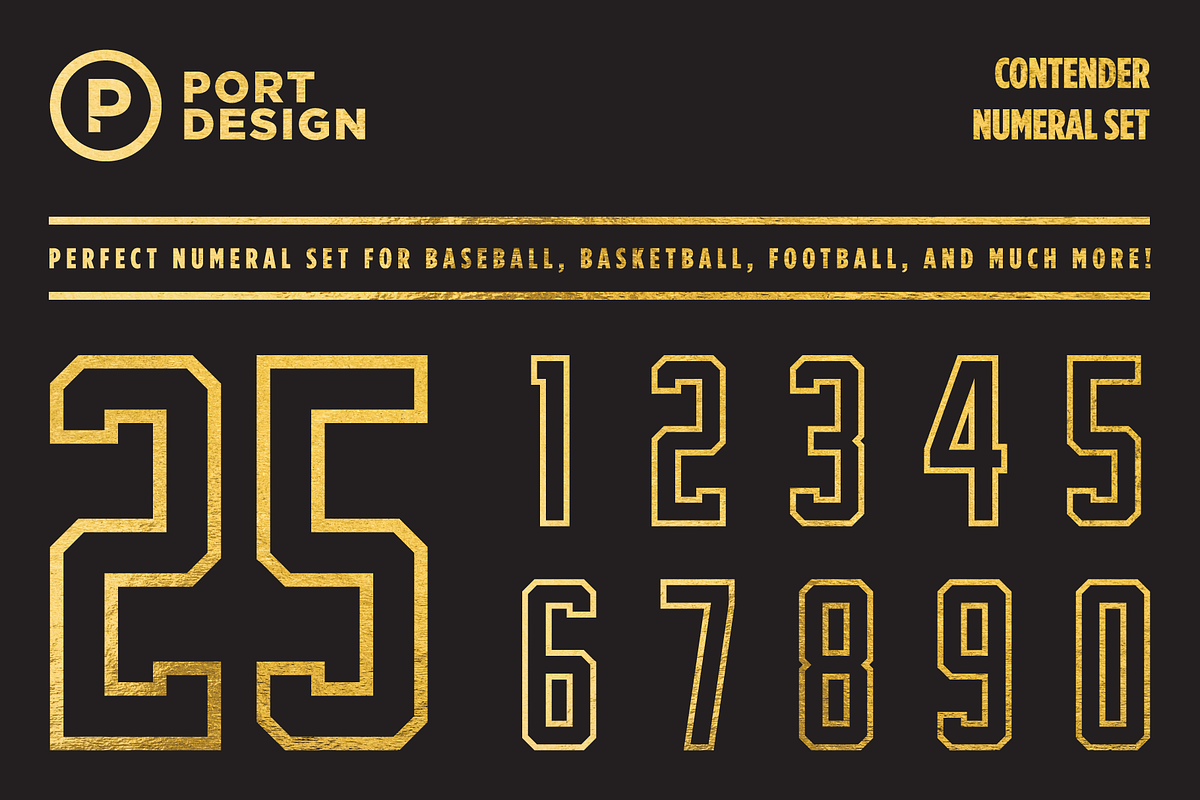
Contender Numeral Set Font Free Download is a bold, athletic-inspired numeric typeface designed to stand out. Ideal for sports jerseys, event posters, scoreboards, digital countdowns, and modern branding, this font delivers strength and clarity with every number. Its clean lines, powerful stance, and professional structure make it a perfect choice when numbers need to command attention.
Using the Contender Numeral Set Font Free Download ensures your numeric designs are sharp, readable, and packed with impact. Whether you're working on a sports-themed logo or creating bold labels for a streetwear brand, this font offers versatility and visual punch.